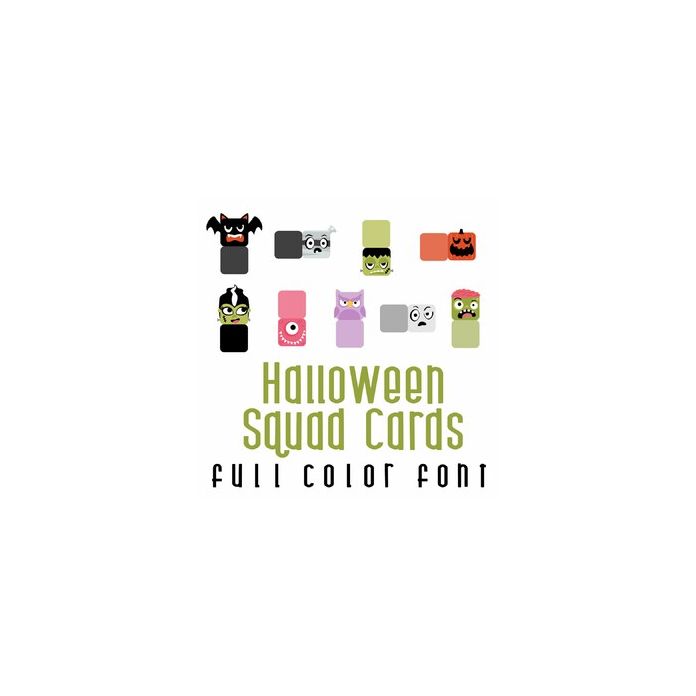
This adorable full-color doodlebat font features 26 Halloween monster cards. Perfect for cards, crafts, gifts, decor, scrapbook pages, planner stickers, and more!